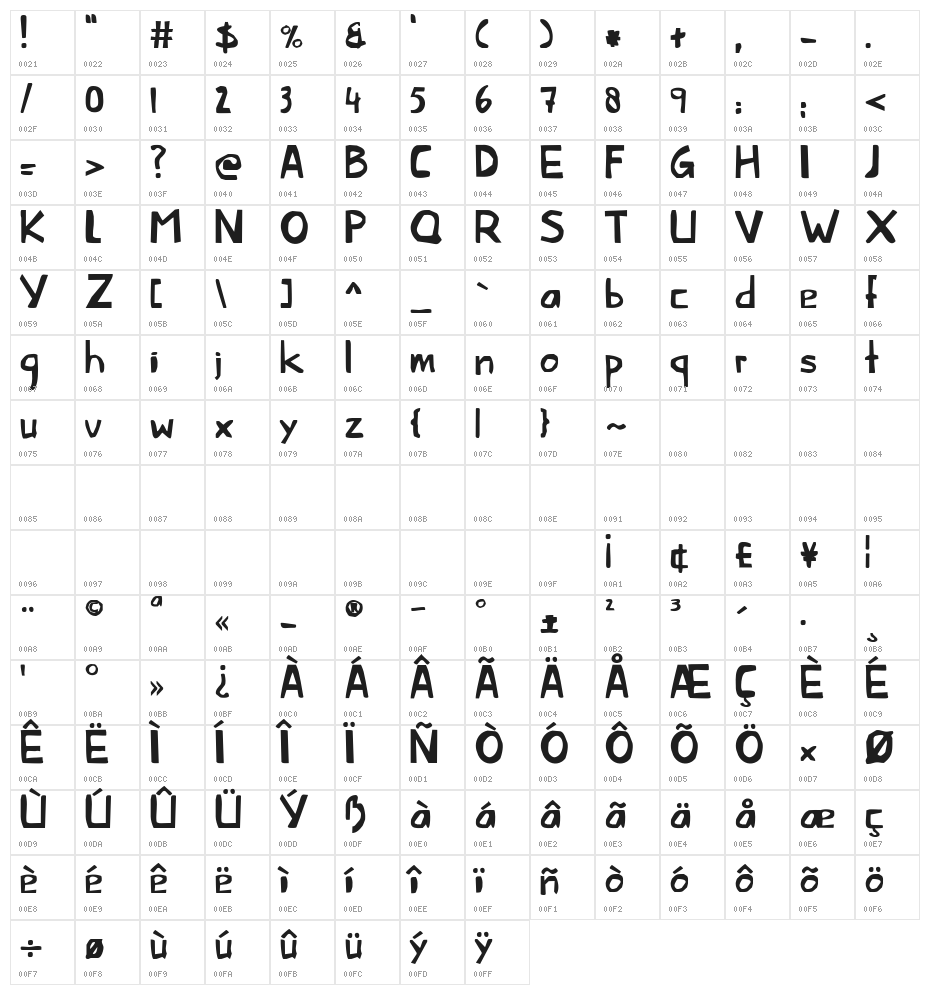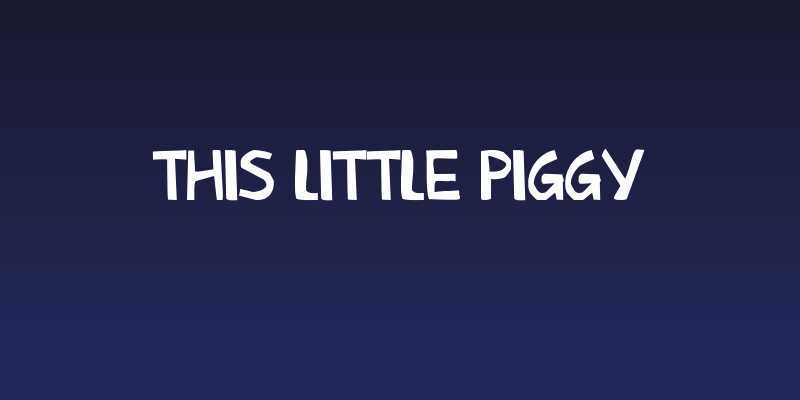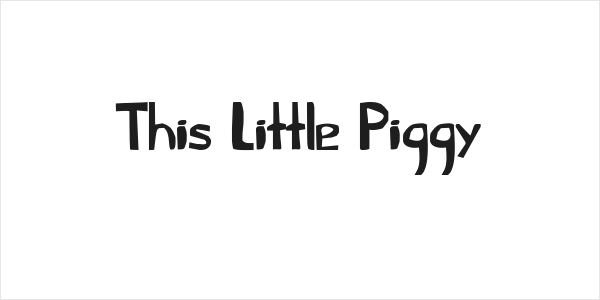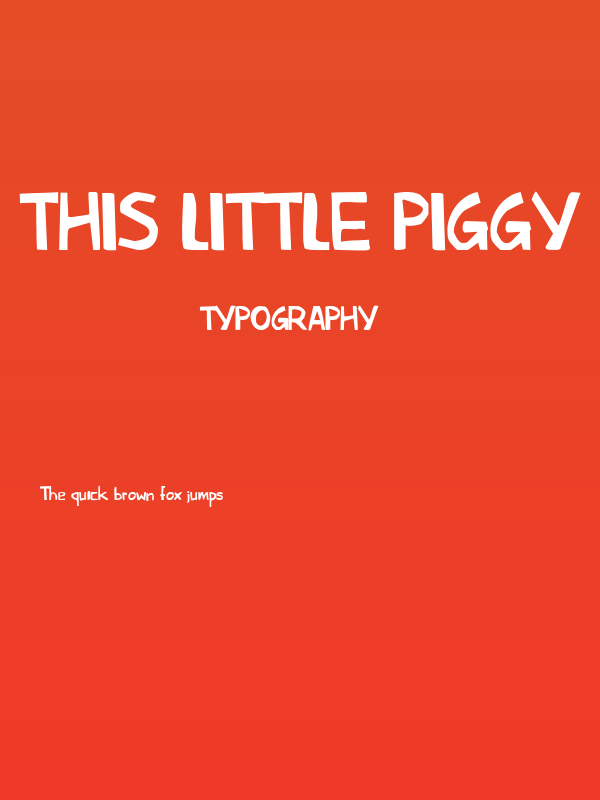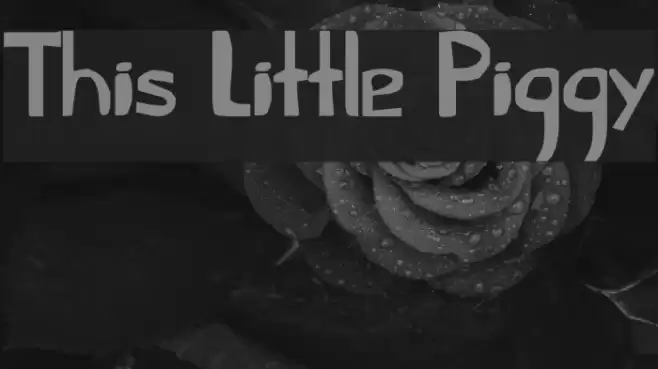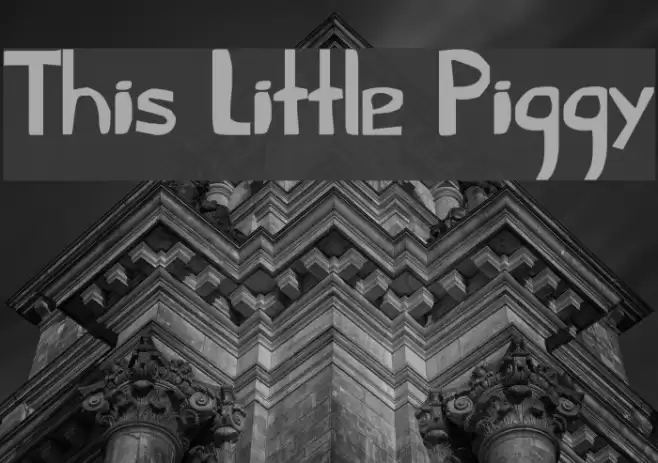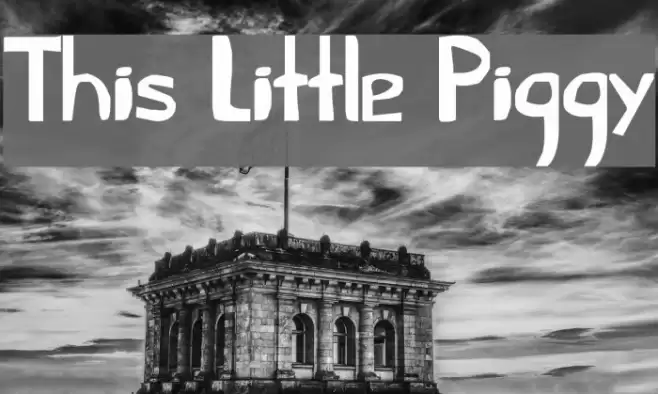
This Little Piggy Font
This Little Piggy Description
This playful and whimsical font features a hand-drawn style with irregular, bold strokes that give it a lively and energetic appearance. The characters are slightly uneven, adding to its charm and making it ideal for projects that require a fun and informal touch. The uppercase and lowercase letters maintain a consistent style, with rounded edges and a slightly condensed form. The numerals and special characters are equally expressive, ensuring a cohesive look across all text elements. Its unique personality makes it stand out, perfect for creative and artistic applications.
| Proposed Projects | Ideal for children's books, playful branding, greeting cards, and creative posters. |